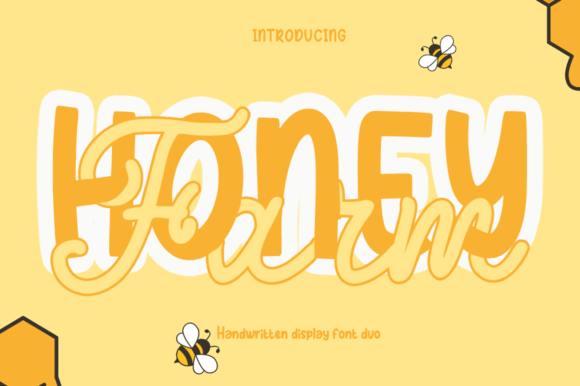
The Sweet Allure of Handwritten Perfection
Imagine you’re flipping through a vintage book, and the words on the page suddenly come alive in a beautiful, handwritten script. You can almost smell the honey and feel the warmth of a summer day. This is the magic of the Honey Farm Font, a meticulously crafted duo of Handwriting fonts designed to transport your audience to a world of elegance and charm.
As a designer, you’re always on the lookout for the perfect font to elevate your projects and make them truly special. That’s where Honey Farm Font comes in – a versatile and sophisticated choice for everything from product endorsements to wedding invitations, logos, and packaging labels. With its unique blend of classic and modern flair, this font duo is sure to add a touch of sophistication to your designs and make your brand stand out from the crowd.
Honey Farm Font Key Features
- Font Family: Honey Farm Font is a unique, hand-drawn script font with a rustic and natural feel, ideal for food, beverage, and lifestyle brands.
- Character Set: Includes a wide range of characters, including uppercase and lowercase letters, numbers, punctuation, and special characters, making it suitable for various design applications.
- Unique Characteristics: Features a distinctive, handwritten style with subtle imperfections, giving it a warm and inviting feel, perfect for brands that want to convey a sense of authenticity and craftsmanship.
Honey Farm Font Review
As a designer, I was initially drawn to the Honey Farm Font due to its unique, whimsical aesthetic. ✨ The font’s playful feel makes it perfect for children’s books, branding for small bakeries, or even food-related businesses. The font’s organic, hand-drawn look gives it a personal touch that sets it apart from more traditional fonts.
The font’s versatility is one of its greatest strengths. It comes in a range of weights and styles, making it suitable for various design applications. The font also includes a range of special characters and ligatures, which add to its overall charm.
- Unique, whimsical aesthetic ✨
- Playful feel suitable for children’s books and food-related businesses
- Range of weights and styles for versatility
- Includes special characters and ligatures
- ⚠️ Limited legibility in smaller sizes
- ⚠️ May not be suitable for formal or corporate branding
Overall, the Honey Farm Font is a charming addition to any designer’s toolkit. While it may have some limitations, its unique aesthetic and versatility make it a great choice for the right project. With some careful consideration and planning, designers can unlock the full potential of this font and create truly unique and engaging designs.
To get the most out of the Honey Farm font, try using it in combination with other elegant fonts, such as serif or sans-serif fonts. You can also experiment with different font sizes and colors to create a unique look.
The Honey Farm font is perfect for:
- Birthday and holiday cards
- Branding and logo designs
- Event signage and marketing materials
Alternative Fonts to Honey Farm Font
Honey Farm Font is a modern script font known for its elegant and sophisticated look. However, there are several alternative fonts that designers can consider for their projects.
Oswald
Oswald is a sans-serif font that is highly legible and versatile. It is ideal for use in headings, titles, and body text. Oswald has a more geometric look compared to Honey Farm Font, which gives it a clean and modern feel. When to use: Use Oswald for projects that require a clean and minimalist design aesthetic.